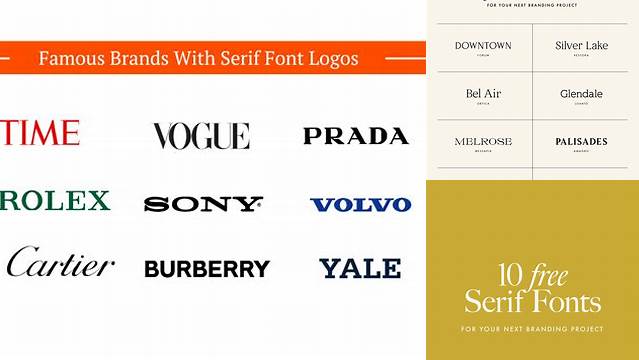
Best Free Serif Fonts For Logos: Make Your Brand Shine
Choosing the right font is crucial when crafting a logo that speaks volumes about your brand. Among the myriad of font styles available, serif fonts exude a classic elegance and trustworthiness that can significantly elevate your brand identity. But let's be real, guys, premium fonts can be a budget buster! So, we've compiled a list of the best free serif fonts for logos that won't cost you a dime. Let's dive in and find the perfect typeface to make your logo stand out!
1. Timeless Elegance: Free Serif Fonts for Classic Logos
When it comes to crafting a logo that whispers of timeless elegance, the choice of font is paramount. Free serif fonts for classic logos are your go-to option, providing that air of sophistication and tradition. These fonts, with their characteristic serifs β those little feet or strokes at the end of the letters β evoke a sense of history and authority. Think of brands like The New York Times or Vogue, their logos immediately convey credibility and class. Serif fonts often bring a touch of formality and refinement, making them perfect for businesses aiming to project stability, trustworthiness, and a sense of established heritage. In essence, opting for a free serif font in a classic logo design isn't just a stylistic choice, it's a strategic one that taps into the inherent psychology of typography, subtly communicating your brand's values and identity to your audience. Remember, the devil's in the details β the right font can be the linchpin of a logo that resonates with your target demographic, leaving a lasting impression of quality and distinction. So, take your time, explore the myriad options available, and choose the serif font that best encapsulates your brand's unique story and mission.
2. Modern Serif Magic: Contemporary Font Choices
Stepping away from tradition doesn't mean abandoning the elegance of serifs altogether. In fact, modern serif magic lies in the ability of contemporary fonts to blend classic aesthetics with a touch of innovation. These fonts often feature refined serifs, cleaner lines, and a more open structure, making them perfect for brands that want to convey sophistication with a modern twist. The beauty of modern serifs is their versatility; they work just as well in digital spaces as they do in print, making them a solid choice for logos designed to live across various platforms. They strike a balance between the formality of traditional serifs and the approachability of sans-serif fonts, creating a logo that feels both current and classic. Think of fashion brands, tech companies, or even innovative food startups β these businesses often opt for modern serif fonts to communicate their forward-thinking approach while still retaining a sense of legacy and quality. When choosing a modern serif font, consider its legibility, scalability, and how well it aligns with your brand's personality. A well-chosen modern serif can be the cornerstone of a logo that not only looks great but also effectively communicates your brand's values and vision.
3. Bold and Beautiful: Serif Fonts for Impactful Logos
Sometimes, a subtle whisper just won't cut it. For brands that want to make a bold and beautiful statement, serif fonts offer an array of options that command attention and exude confidence. These fonts often feature thicker strokes, higher contrast, and a more pronounced serif structure, ensuring your logo stands out in a crowded marketplace. Imagine brands like Gucci or Prada β their logos are instantly recognizable, thanks in part to the impactful serif fonts they employ. Using a bold serif font in your logo is a powerful way to project strength, reliability, and a sense of authority. These fonts work particularly well for businesses in industries such as finance, law, or luxury goods, where conveying trust and gravitas is paramount. However, it's crucial to strike a balance β a bold serif font should be impactful without being overwhelming. Consider the overall design of your logo, the font's legibility, and how well it scales across different sizes and platforms. The right bold serif font can be the anchor of a logo that not only captures attention but also leaves a lasting impression of quality and distinction. So, don't be afraid to go bold β your logo might just thank you for it!
4. Free Serif Fonts: Unlocking Design Potential Without Breaking the Bank
Let's talk about the magic words for any budget-conscious entrepreneur or designer: free serif fonts. The misconception that high-quality design requires a hefty investment is simply not true, especially when it comes to typography. The digital landscape is brimming with a treasure trove of free serif fonts, offering an incredible range of styles, weights, and personalities. From classic options like Libre Baskerville and Playfair Display to more modern interpretations like Merriweather and Arvo, the possibilities are endless. These fonts aren't just free in price; they're also free in the sense that they unlock design potential without the financial constraints that often stifle creativity. Choosing free serif fonts for your logo is a smart move, allowing you to allocate resources to other crucial aspects of your branding and business development. However, it's essential to do your due diligence. Check the font's license to ensure it's suitable for commercial use, and always test it across various applications and sizes to ensure legibility and visual appeal. Remember, a great logo isn't about the price tag of the font; it's about how effectively the font communicates your brand's essence and values.
5. Serif Font Styles: Exploring a World of Options
The world of serif fonts is vast and varied, offering a kaleidoscope of styles to suit every brand identity and aesthetic. Diving into serif font styles is like embarking on a typographic adventure, where you'll encounter everything from the elegant curves of Old Style serifs to the sharp, precise lines of Didone fonts. Understanding these nuances is crucial for choosing a font that truly resonates with your brand. For instance, Old Style serifs, like Garamond or Caslon, evoke a sense of tradition and craftsmanship, perfect for brands with a rich history or a commitment to quality. Transitional serifs, such as Times New Roman, offer a balance between classic and modern, making them versatile choices for a wide range of industries. Meanwhile, Didone fonts, with their high contrast and dramatic serifs, exude luxury and sophistication, often seen in fashion and beauty branding. Slab serifs, characterized by their thick, block-like serifs, command attention and convey a sense of strength and stability. Exploring these different styles will not only broaden your typographic horizons but also empower you to make informed decisions about your logo design. Remember, the style of your serif font is a powerful tool for communicating your brand's personality and values β so choose wisely!
6. Best Serif Fonts: Top Choices for Logo Design
Navigating the sea of available fonts can be overwhelming, but fear not! We've curated a list of the best serif fonts specifically for logo design. These fonts have been chosen for their legibility, versatility, and ability to convey a range of brand personalities. Whether you're aiming for classic elegance, modern sophistication, or bold impact, there's a serif font on this list to suit your needs. Let's talk specifics, guys. Fonts like Playfair Display and Libre Baskerville offer a touch of traditional charm, while Merriweather and Montserrat Classic provide a more contemporary feel. For logos that need to make a statement, consider fonts like Arvo or Slabo 13px, known for their strong presence and readability. The key is to consider your brand's identity and the message you want to convey. Is your brand classic and timeless, or modern and innovative? Is it bold and assertive, or subtle and refined? The best serif fonts will not only look beautiful but also communicate your brand's essence effectively. So, explore these top choices, experiment with different combinations, and discover the perfect typographic voice for your logo.
7. Google Fonts Serif: A Treasure Trove of Free Options
In the realm of free fonts, Google Fonts Serif reigns supreme as a treasure trove of typographic delights. This platform offers a vast library of open-source serif fonts, all readily available for both personal and commercial use. For designers and entrepreneurs on a budget, Google Fonts is a game-changer, providing access to a wide range of high-quality typefaces without the hefty price tag. The beauty of Google Fonts Serif lies not only in its affordability but also in its ease of use and integration. The fonts are easily accessible through Google's intuitive interface, and they seamlessly integrate with web design platforms and graphic design software. This makes it incredibly simple to experiment with different serif fonts and incorporate them into your logo design. From the classic elegance of Lora to the modern sophistication of Raleway, Google Fonts offers a diverse palette of typographic styles to choose from. So, if you're looking for the perfect serif font for your logo without breaking the bank, Google Fonts is the place to start your search. You might just discover your brand's new voice in this vast and vibrant typographic landscape.
8. Logo Fonts: How to Choose the Right Serif
Choosing the right font for your logo is like selecting the perfect outfit for a special occasion β it needs to be just right to make the desired impression. When it comes to logo fonts, especially serif fonts, there are several key factors to consider. First and foremost, think about your brand's personality. Is your brand classic and traditional, or modern and innovative? Is it bold and assertive, or subtle and refined? The font you choose should reflect these qualities. Secondly, consider legibility. A beautiful font is useless if it's difficult to read, especially at small sizes. Ensure your chosen serif font is clear and legible across different applications, from business cards to websites. Thirdly, think about versatility. Your logo will likely appear in various contexts, so choose a font that works well in both print and digital formats. Finally, don't be afraid to experiment with different font pairings. Combining a serif font with a sans-serif font can create a visually appealing and balanced logo. Remember, your logo fonts are a crucial element of your brand identity, so take the time to choose wisely. The right serif font can be the cornerstone of a logo that not only looks great but also effectively communicates your brand's essence and values.
11. Serif Fonts for Branding: Building a Strong Identity
Serif fonts for branding are a powerful tool for building a strong and recognizable brand identity. The choice of font can communicate a wealth of information about your brand, from its personality and values to its target audience and industry. Serif fonts, with their classic elegance and timeless appeal, often convey a sense of tradition, authority, and trustworthiness. This makes them particularly well-suited for brands in industries such as finance, law, education, and luxury goods, where conveying credibility and reliability is paramount. However, serif fonts can also be used in more modern and innovative branding contexts, especially when paired with contemporary design elements. The key is to choose a serif font that aligns with your brand's overall identity and message. Consider your brand's values, target audience, and competitive landscape. Are you aiming for a classic and sophisticated look, or a more modern and approachable feel? Are you targeting a high-end clientele, or a broader market? The answers to these questions will help guide your choice of serif font. Remember, your font is a crucial visual element of your brand, and it should work in harmony with your logo, color palette, and overall branding strategy. Choosing the right serif fonts for branding can be a game-changer, helping you to create a logo and visual identity that truly resonates with your target audience.